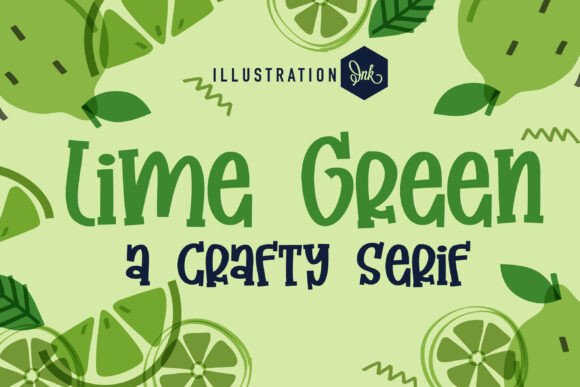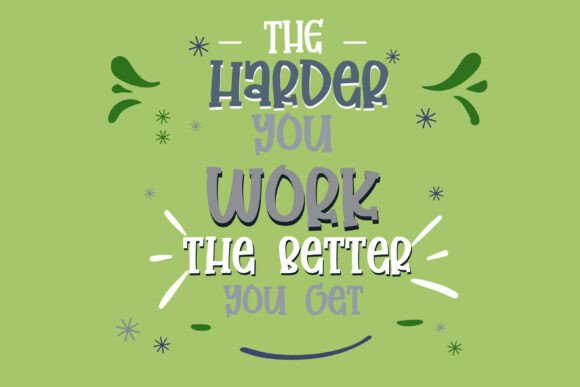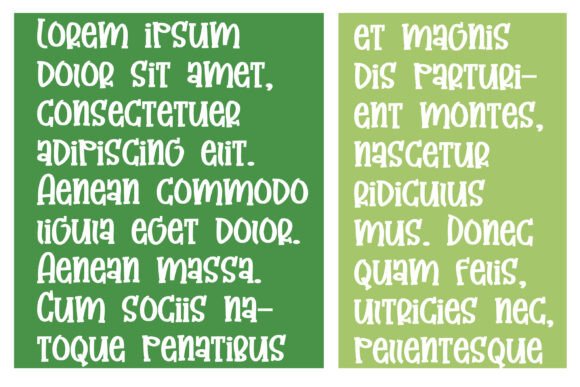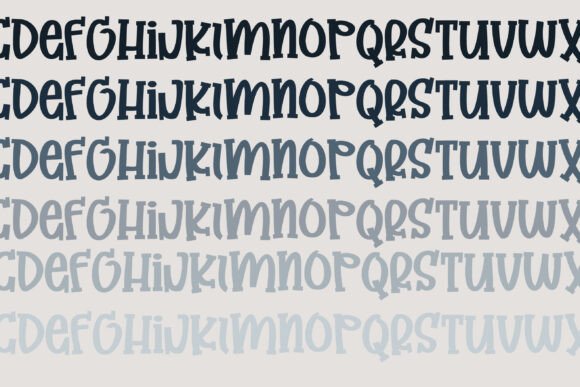
Lime Green Font
About the Lime Green Font
Crafted with precision, the Lime Green Font is ready to bring your ideas to life. This hand-crafted font is a whimsical print with hand-crafted slab serifs throughout.
Lime Green Font’s whimsical, handcrafted nature makes it ideal for headlines, short text blocks on invitations or greeting cards, and packaging design where a playful, approachable feel is desired. It would also work well for branding elements needing a handcrafted, unique touch. However, its highly decorative serifs and inconsistent stroke weights make it unsuitable for body text or UI applications requiring high readability.
The font’s personality is undeniably playful and friendly, but maintains a degree of sophistication. For effective pairings, consider balancing its informal character with a crisp sans-serif like Montserrat for body copy or a more geometric sans-serif like Futura for a modern contrast. A clean serif such as Garamond could add a touch of traditional elegance, while a script font like Allura would enhance the handwritten aesthetic, although used sparingly.